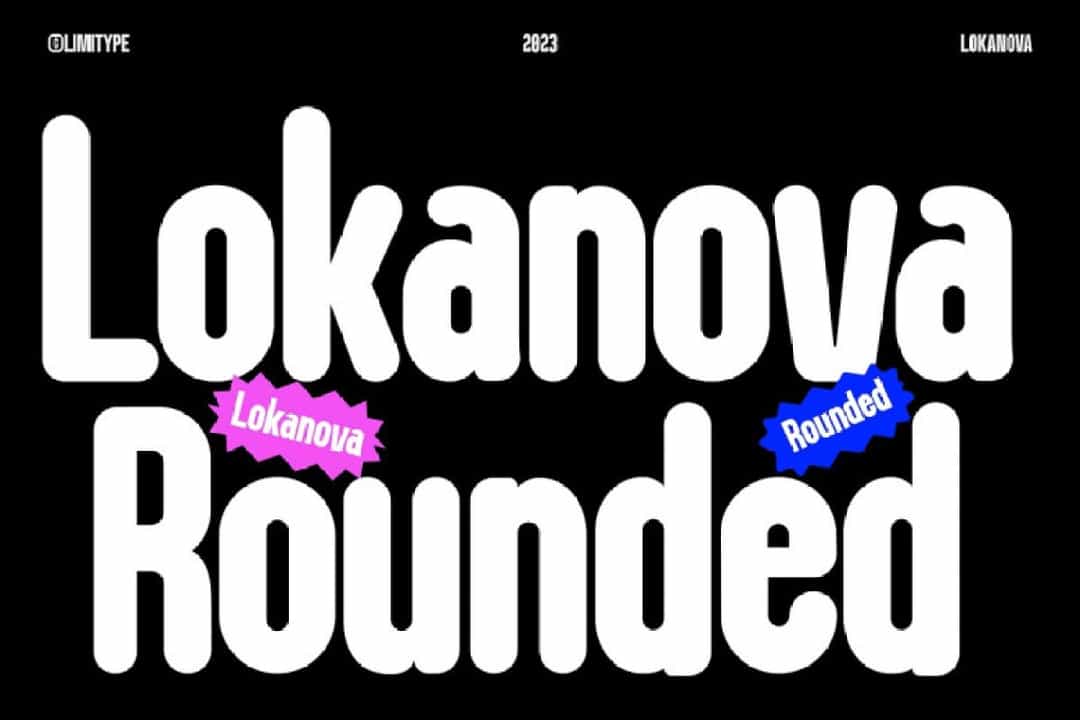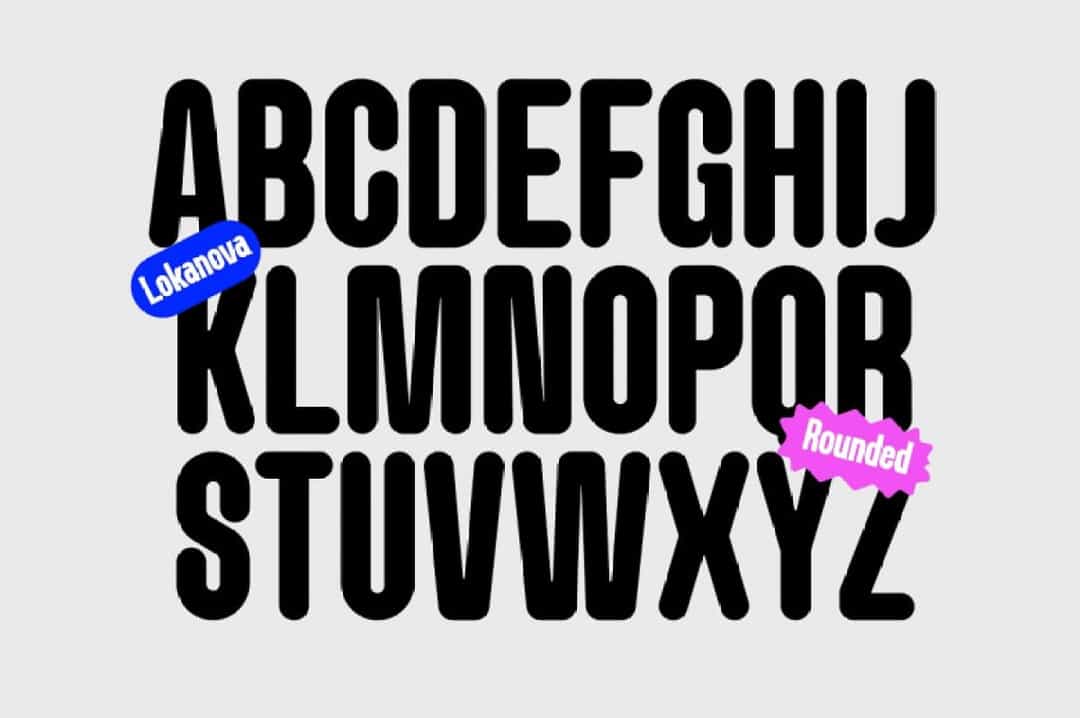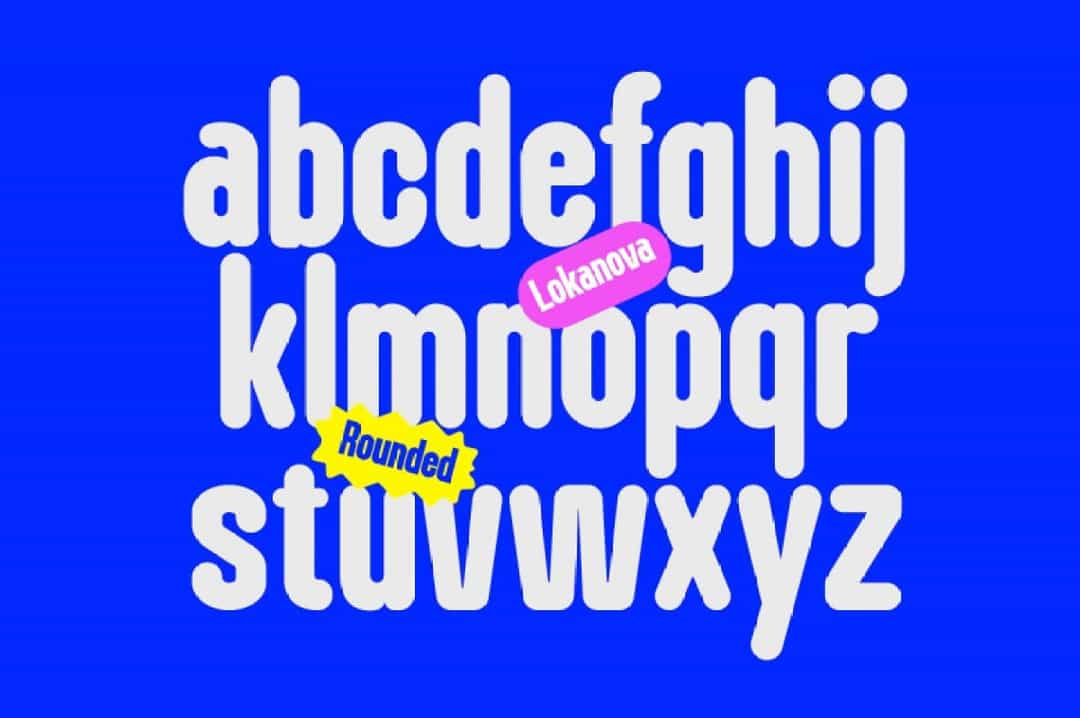
Discover Lokanova Rounded Font, part of the Sans Serif Display collection—a versatile and unique font perfect for adding a personal touch to your projects. Download it for free and enjoy crafting designs with style, from invitations to social media posts. This font is available exclusively for personal use, giving you the freedom to create without limits. Unlock your creativity with Lokanova Rounded Font today!
Lokanova is an open-type display font designed with an eye-catching, striking and distinct sans serif font to convey an impression of solid yet playful design. Available for uppercase, lowercase numbers symbol and multilingual usage.